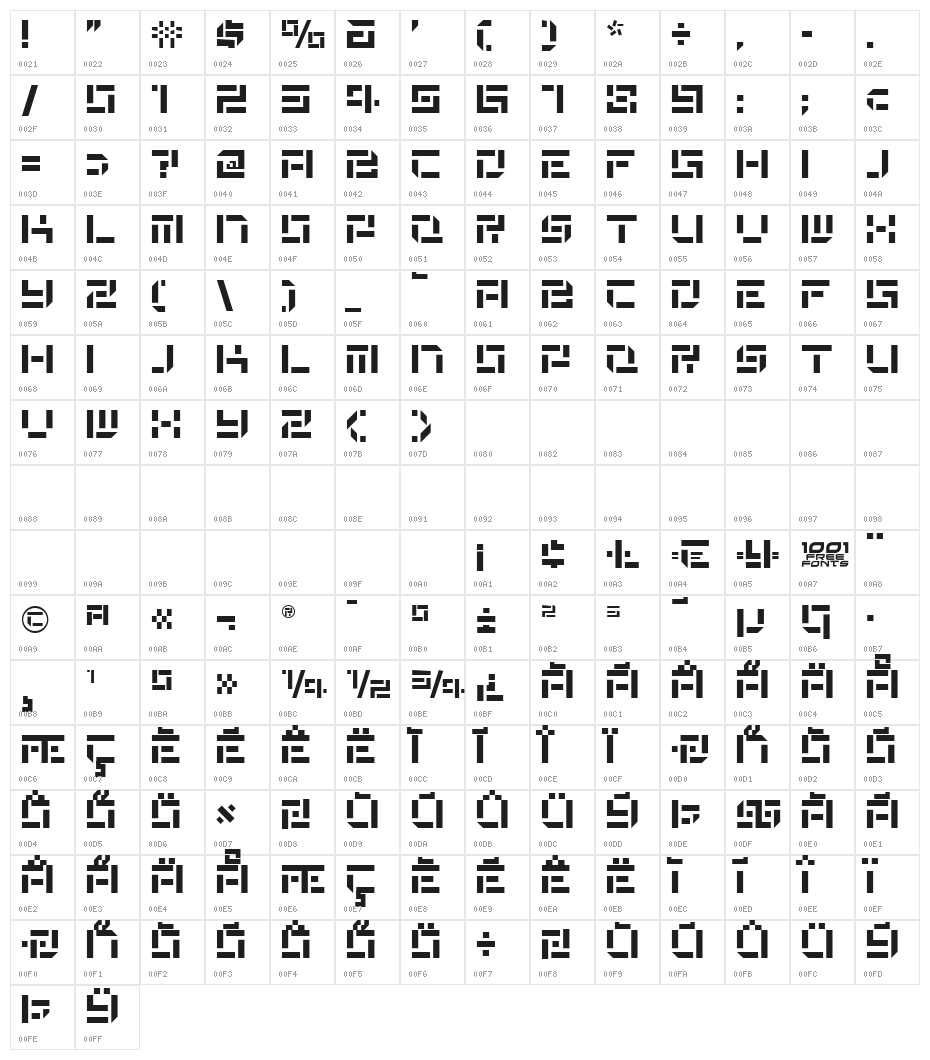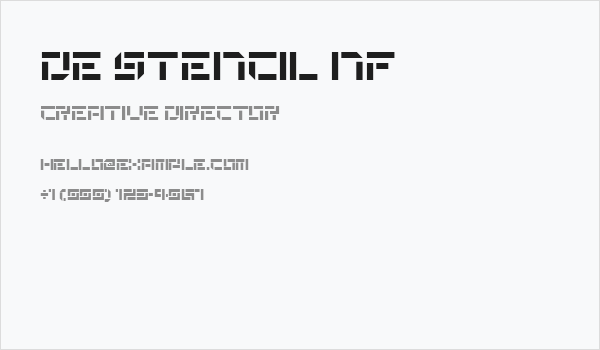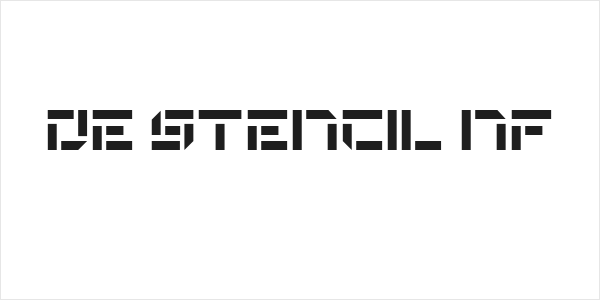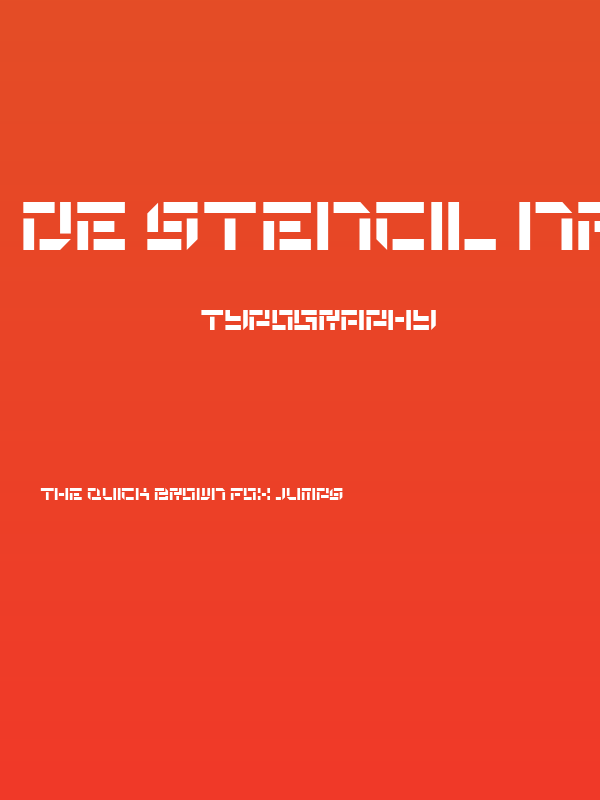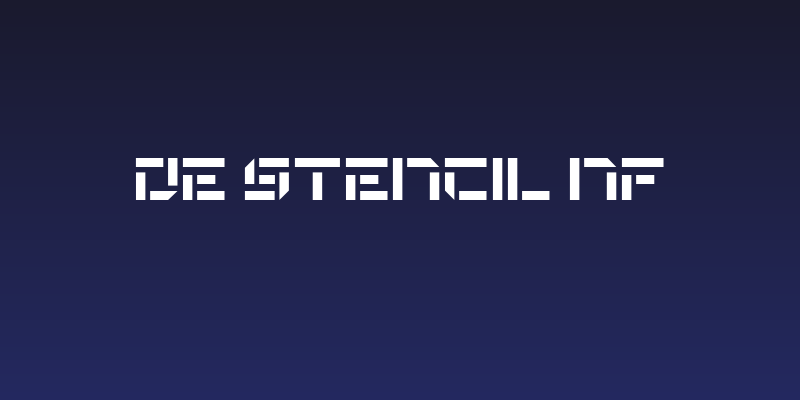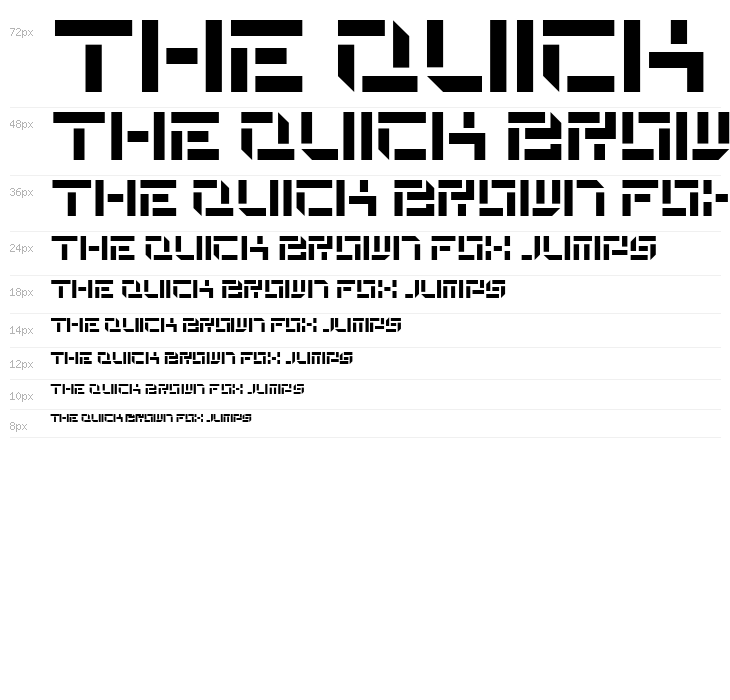
De Stencil NF Font
De Stencil NF Description
This font features a bold, geometric design with a stencil-like appearance. The characters are constructed with thick, blocky lines and sharp angles, creating a modern and industrial feel. The negative space within the letters enhances the stencil effect, making it ideal for impactful and eye-catching designs. The uppercase and lowercase letters maintain a consistent style, while the numerals and special characters complement the overall aesthetic. This font is suitable for projects that require a strong, assertive presence.
| Proposed Projects | Ideal for branding, posters, signage, and any design that requires a strong, bold statement. |